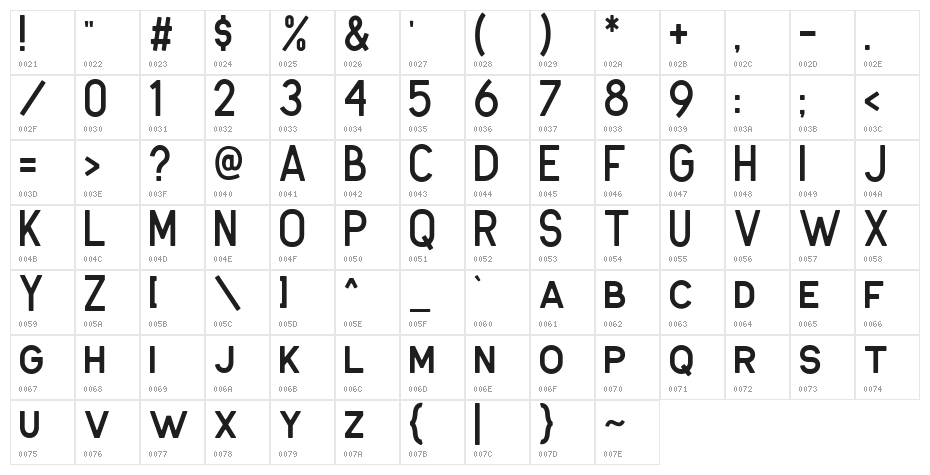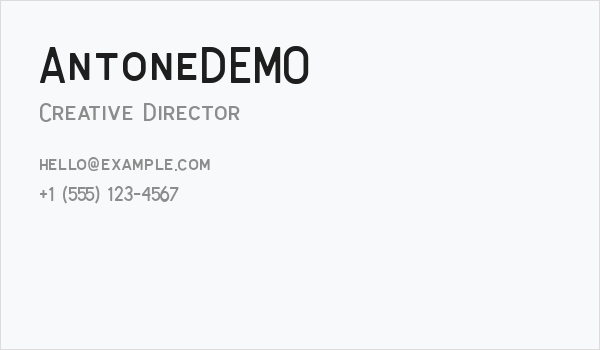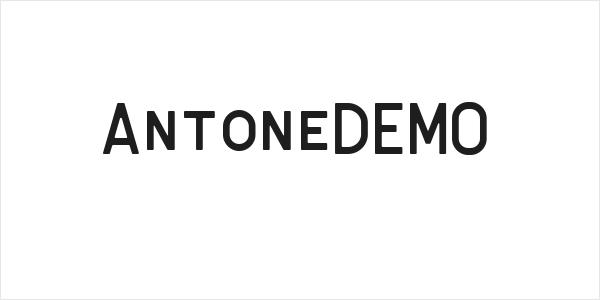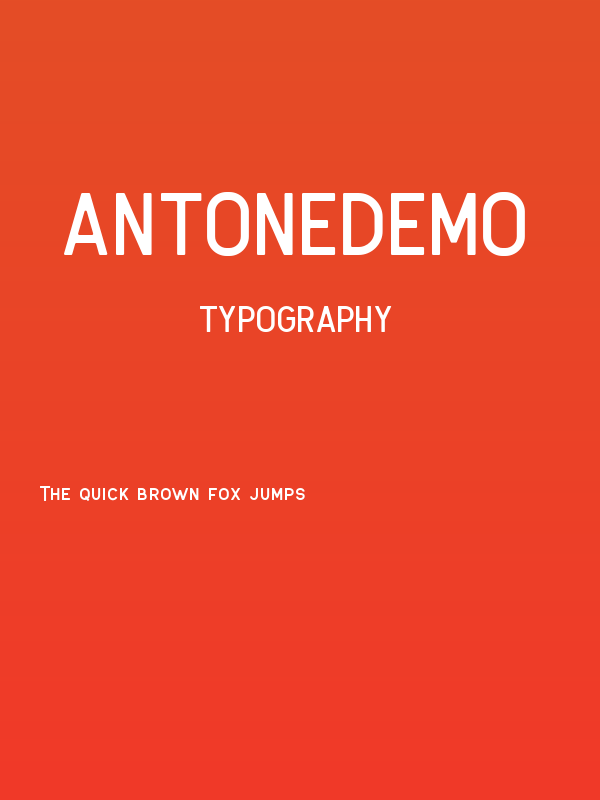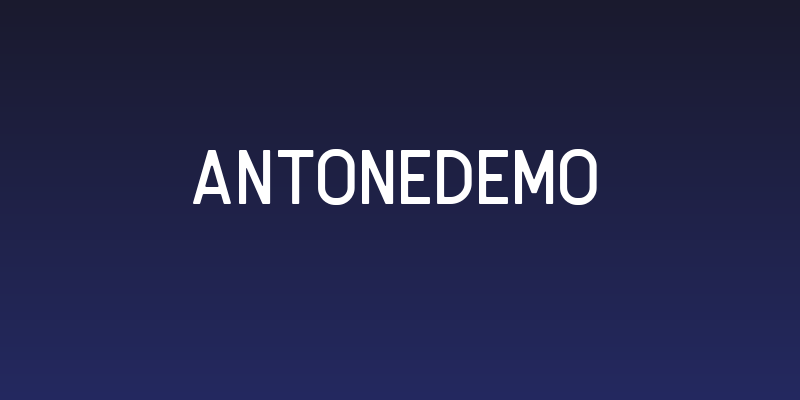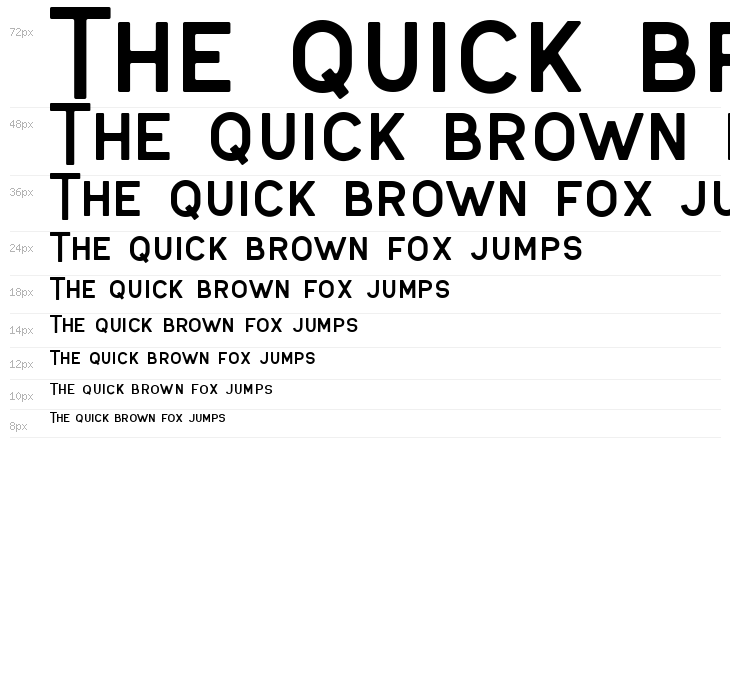
AntoneDEMO Font
AntoneDEMO Description
This font features a clean and modern sans-serif design with uniform stroke widths, providing a straightforward and professional appearance. The characters are well-proportioned, with a focus on readability and clarity. The uppercase and lowercase letters maintain a consistent style, while the numerals are clear and easy to distinguish. Special characters are designed with simplicity in mind, ensuring they blend seamlessly with the rest of the typeface. This font is versatile, suitable for both digital and print media, and can be used in a variety of contexts where clarity and modernity are desired.
| Proposed Projects | Ideal for branding, web design, corporate materials, and editorial layouts. |